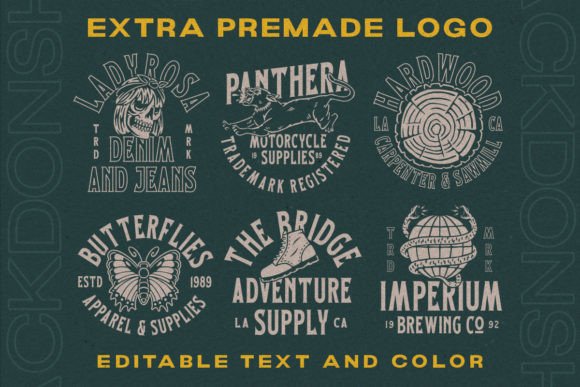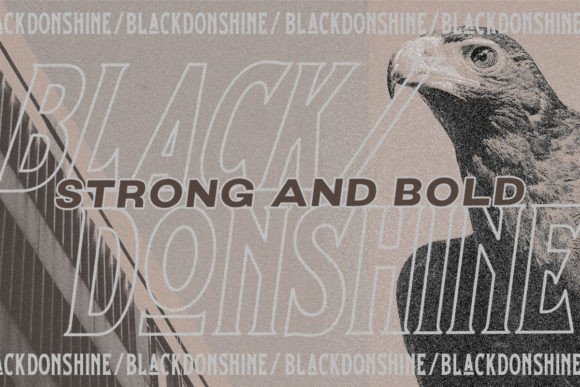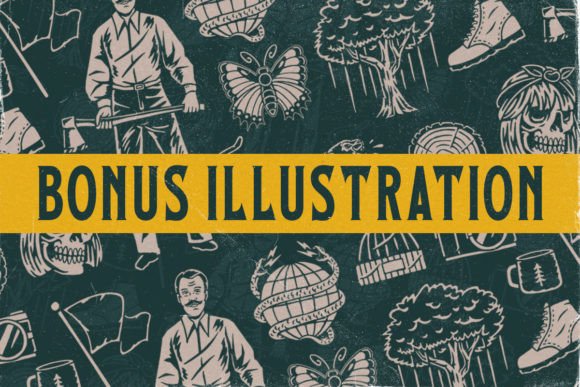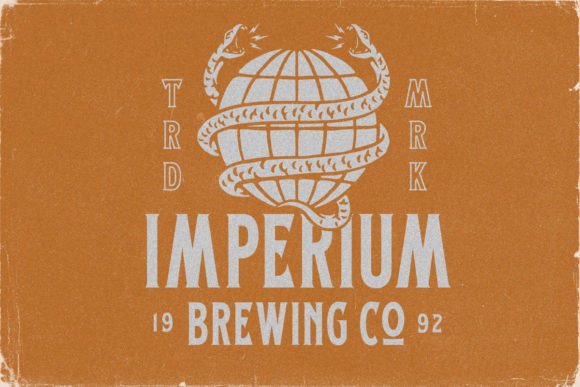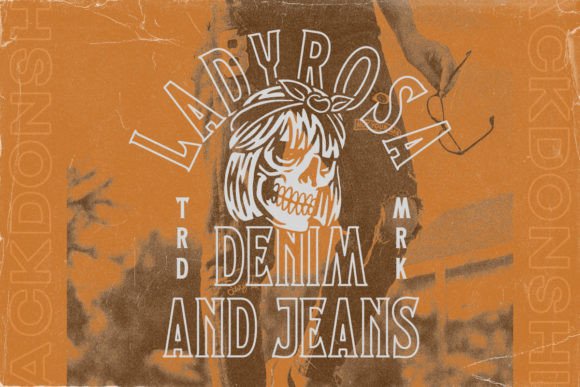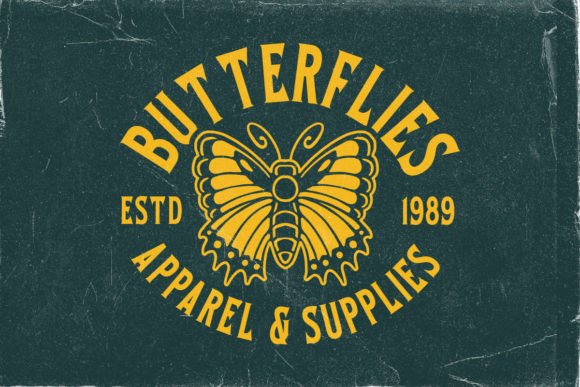
The Bold Statement Maker: Unleashing the Power of Black Donshine Font
I’ll never forget the time I was working on a logo design project for a fashion brand, and I was struggling to find the perfect font that would make a statement. The client wanted something bold, modern, and eye-catching, but I was coming up blank. That’s when I stumbled upon Black Donshine, a display typeface that demands attention with its bold vintage looks. In this article, I’ll share my experience with Black Donshine, its features, and how to make the most of it in your designs.
First Impressions: A Font that Packs a Punch
Black Donshine is a display typeface that exudes confidence and toughness, thanks to its sharp hooks and strong lines. It’s the perfect font for designs that require a bold and modern look, such as logos, posters, and advertisements. Whether you’re designing invitations, labels, logos, magazines, books, greeting/wedding cards, packaging, fashion, makeup, stationery, novels, or any type of advertising material, Black Donshine is sure to make a statement.
• Bold and eye-catching design: Black Donshine is perfect for making a statement in your designs.
• Versatile: It can be used for a wide range of design projects, from logos to posters and advertisements.
• 🎉 Illustration bonus: The font comes with an illustration bonus, which can add an extra creative element to your designs.
• 🤔 Limited use in body text: Due to its bold design, Black Donshine may not be suitable for body text, especially in longer paragraphs.
• ⚠️ Legibility at small sizes: The font may not be legible at very small sizes, so it’s best to use it at larger sizes where it can shine.
3. Experiment with OpenType features, such as glyphs and stylistic alternates, to add more creativity to your design.
The Story Behind Black Donshine: Designer Inspiration
Black Donshine was designed with the goal of creating a bold and eye-catching font that would make a statement in any design. The designer, inspired by vintage typography, aimed to create a font that would exude confidence and toughness. The result is a font that is perfect for designers, crafters, and creative hobbyists who want to add a bold and modern touch to their designs.
Frequently Asked Questions:
Q: What is Black Donshine font?
A: Black Donshine is a display typeface that demands attention with its bold vintage looks.
Q: Is Black Donshine suitable for body text?
A: No, Black Donshine is best used for headlines and titles, as it may not be legible at smaller sizes.